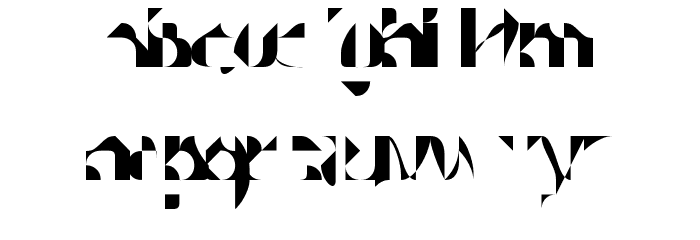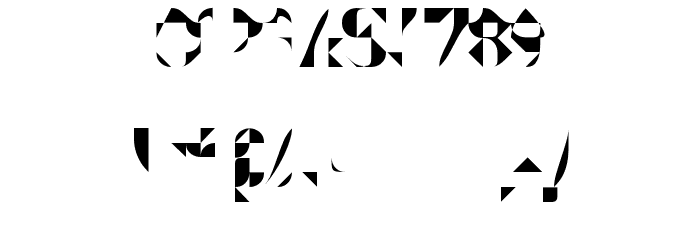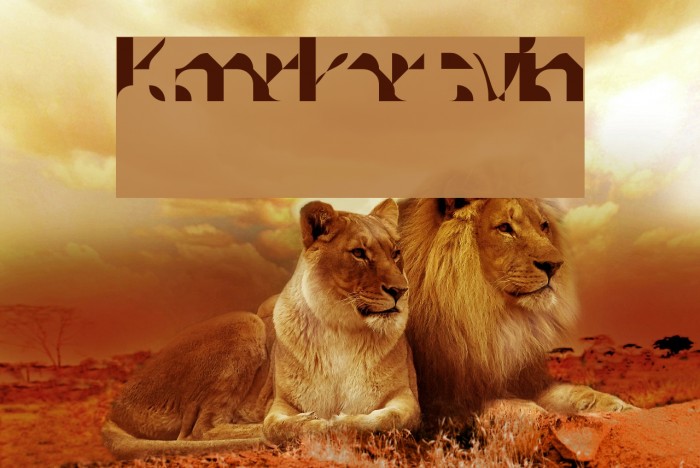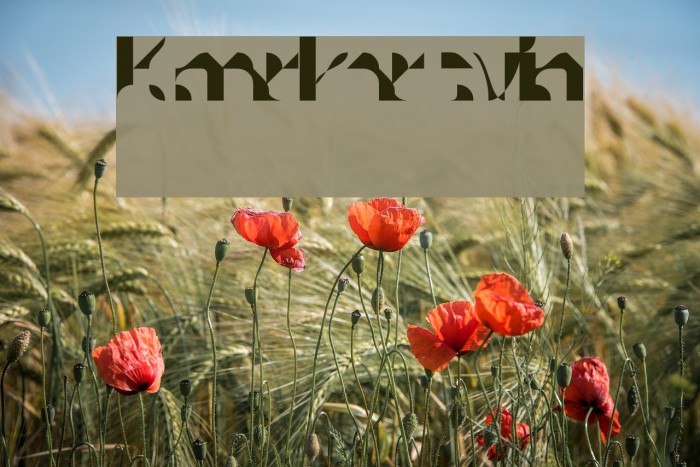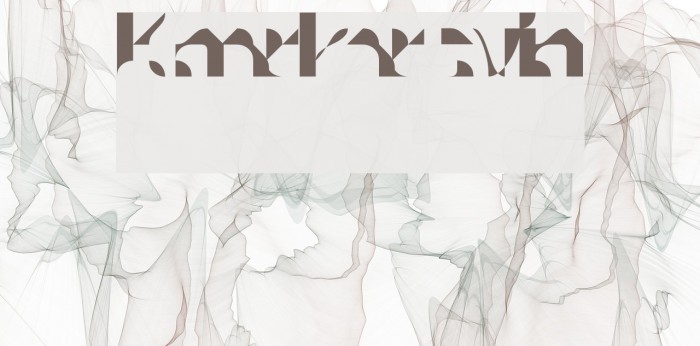
Knarkarsvin Font
This font features a highly stylized and abstract design, with characters that are partially obscured or fragmented, creating a unique visual effect. The strokes are bold and angular, with sharp edges and varying thicknesses that add a dynamic and modern feel. The letters are not fully closed, giving an impression of movement and energy. This font is likely intended for decorative or artistic purposes, as its readability is compromised by its artistic design.
A bold, abstract font with fragmented, angular characters.
- Proposed Projects: Ideal for artistic projects, modern art posters, album covers, or any design that requires a bold, abstract statement.
- Overall Style: Modern, Abstract
- Use Case: Logos, Posters, Artistic Designs